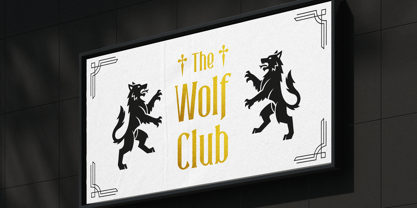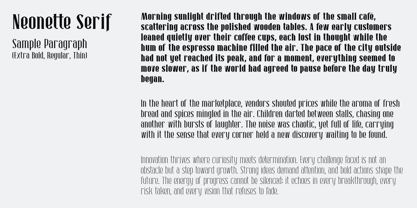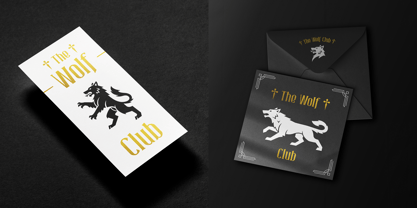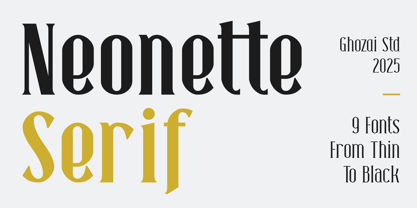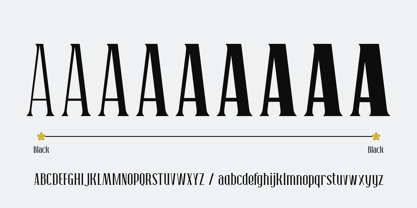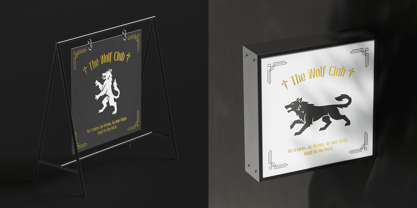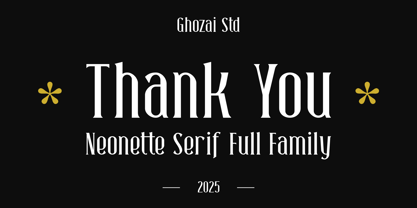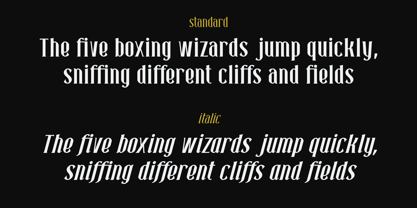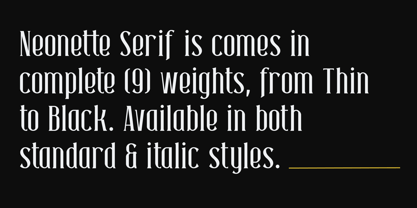
Neonette Serif
The Neonette Serif Font Family was designed by Manzur Ghozaali and published by Ghozai Studio. Neonette Serif contains 18 styles and family package options. More about this family
Neonette Serif is a completely versatile sans font family that includes 9 weights, ranging from Thin to Black. With its extensive array of weights, OpenType features, and robust multilingual glyph support, Neonette Serif caters to diverse design needs across different languages. Its modern, clean, and aesthetic design makes it suitable for various applications, including display typography, branding, signage, magazines, and any prints. Whether you are crafting striking headlines, unique logos, or legible signage, Neonette Serif provides both style and functionality, seamlessly adapting to different design styles and ensuring a contemporary touch in any project.